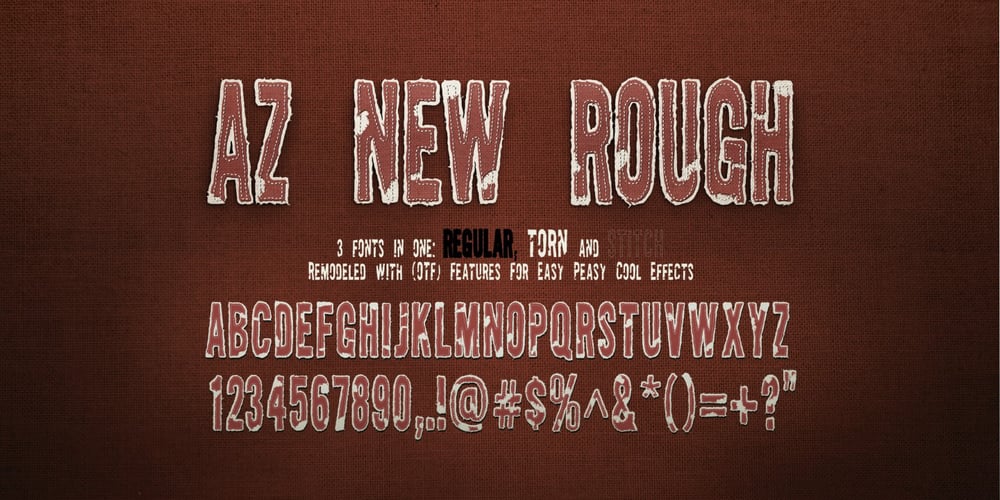
AZ New Rough
AZ New Rough font
AZ New Rough Font Family was designed by Andre Zottolo and published by Artist of Design. AZ New Rough contains 3 styles and family package options. AZ New Rough font was inspired from a need for a bold headline of san serif text letters that looks like it was cut from fabric. This font utilizes an “old look” to the line work which is designed to have a “worn feel” to it. Ideal for use as headline or sub-head text in you design.